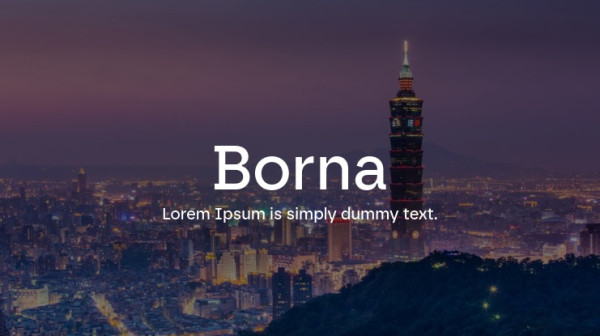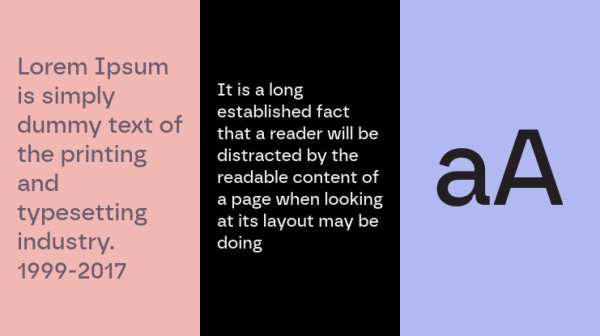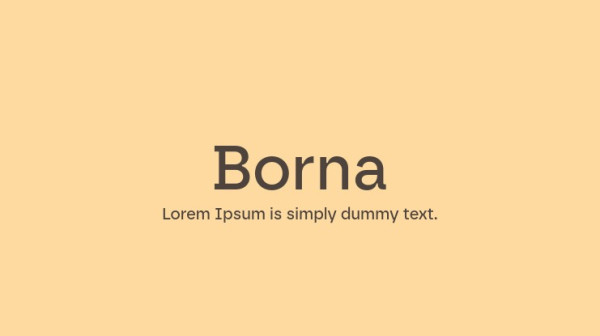
Borna Font
Borna Font is a structural sans-serif font from atipo that combines the virtues of typographic styles such as geometric fonts and the most representative of the Swiss style such as Helvetica or Univers. It has apparent and deep ink traps in all weights, which gives it personality and a certain technological air. Borna picks up the typographical tradition but updating its appearance and focusing on the near future.
Borna comes in eight weights with matching italics and was intended to be versatile working for both print and digital design, logos, branding, editorial, packaging, publishing, and web design.